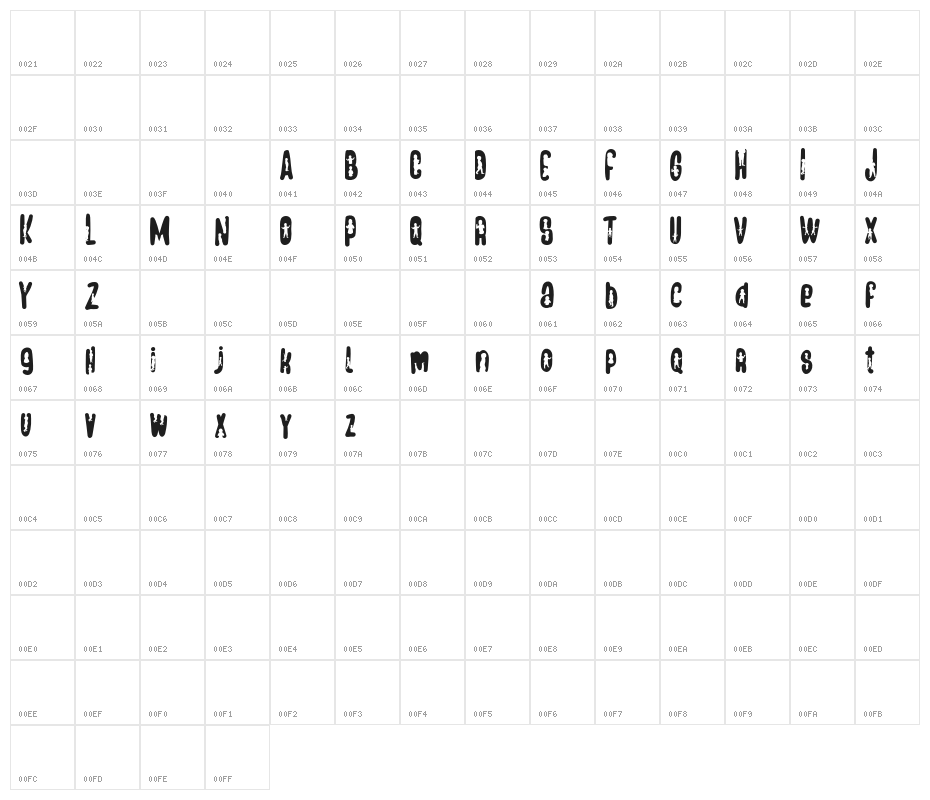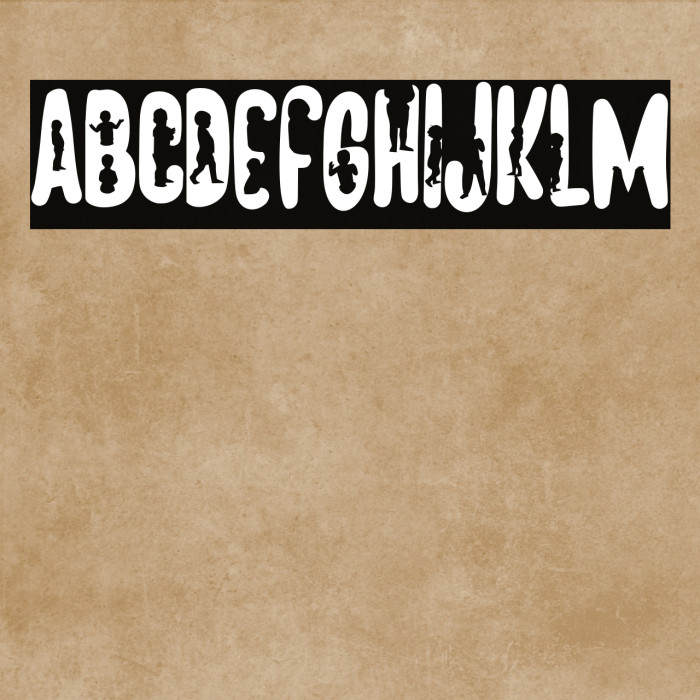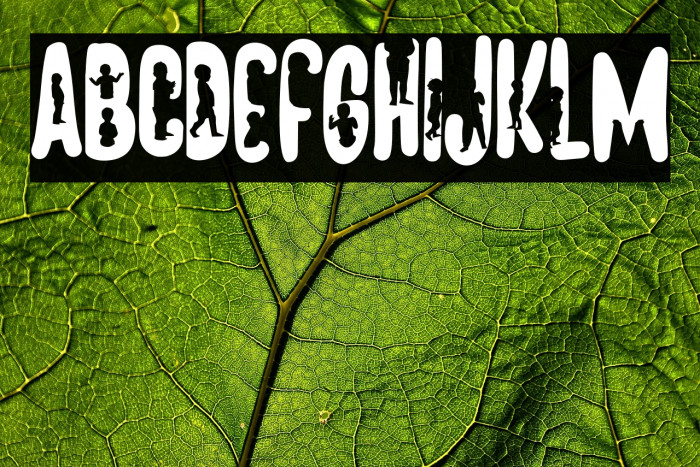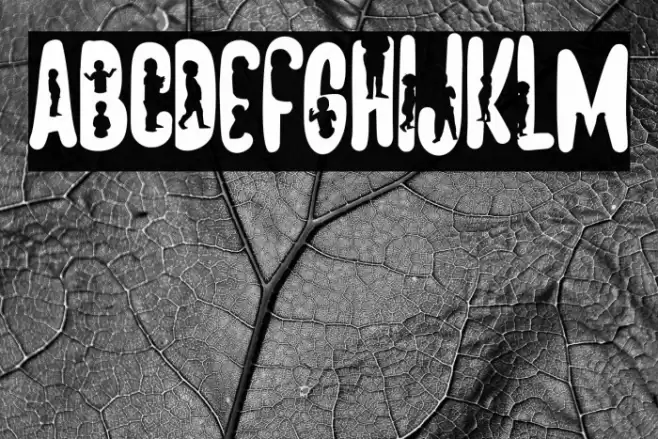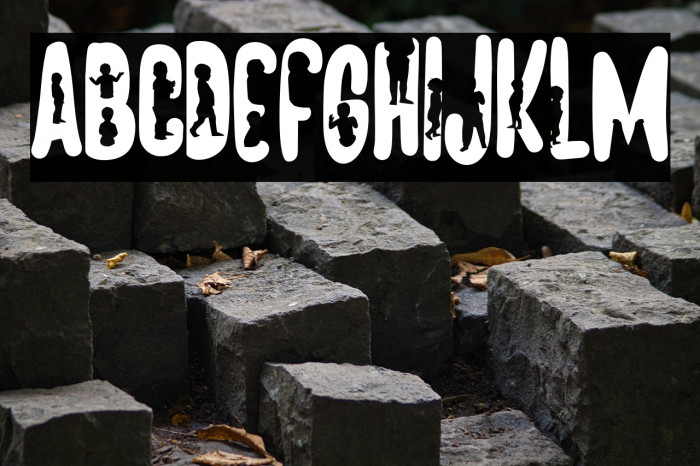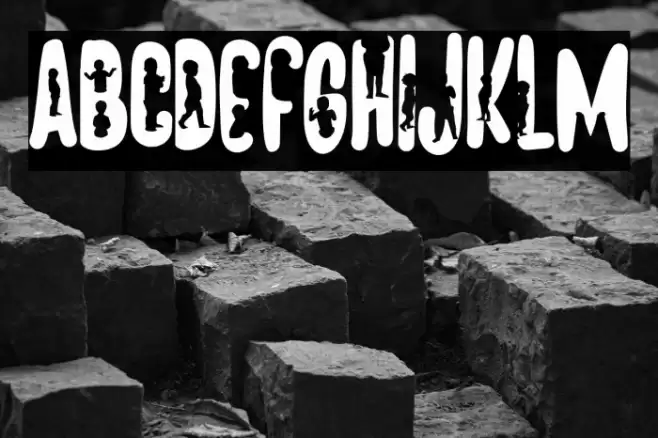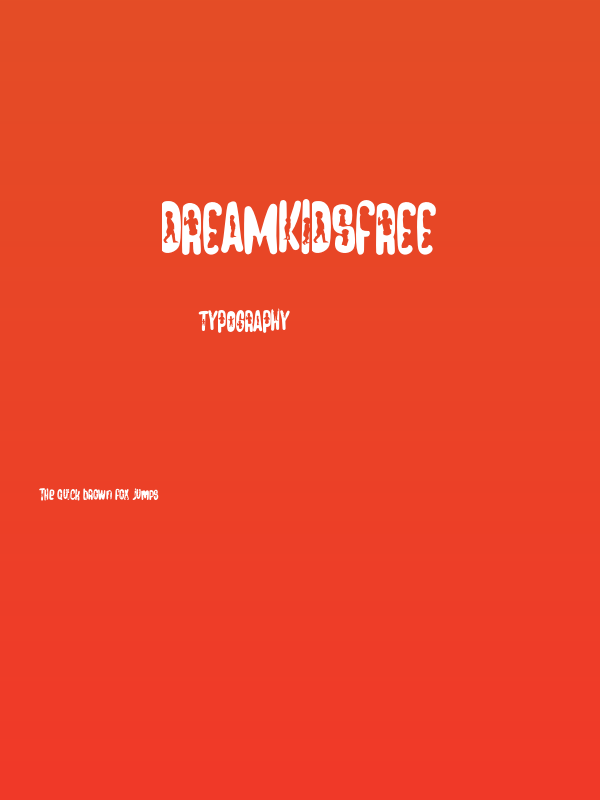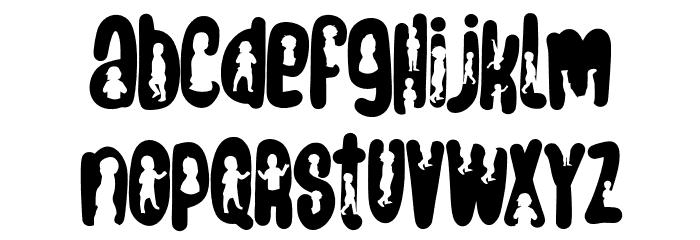
DreamKidsFREE Font
| Stil general | Playful, Whimsical |
| Caz de utilizare | Headlines, Logos, Children's content |
| Proiecte propuse | Ideal for children's books, educational materials, playful branding, and toy packaging. |